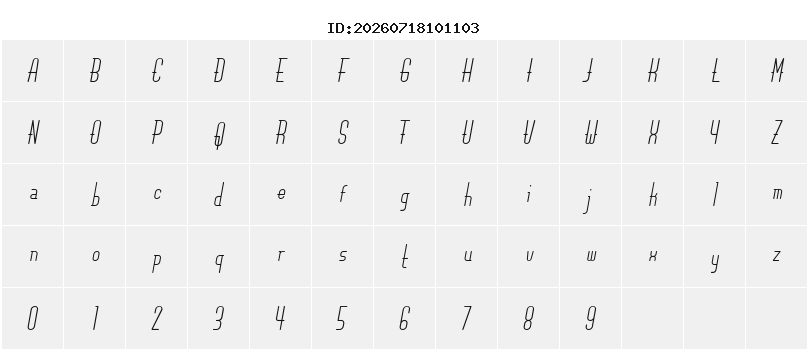
• Font Name: Century
About Century.ttf
Century.ttf is a modern, elegant sans-serif font designed for ultimate readability and visual harmony. Perfect for branding, headlines, web design, and print materials.